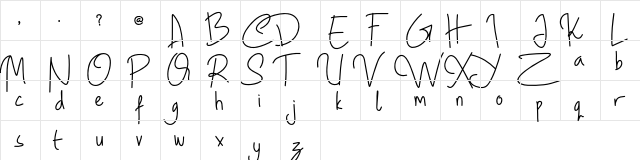
Geovana Regular
Design Context for Geovana Typeface
Geovana is a composed and adaptable typeface that performs quietly and consistently across a wide range of design contexts.